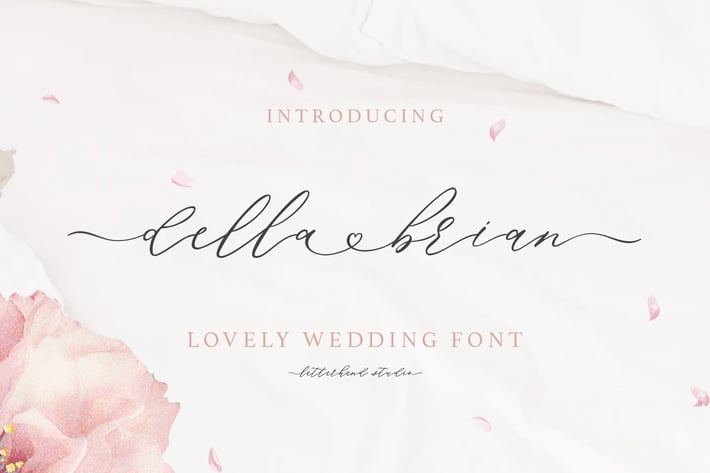
Della Brian - Lovely Wedding Font
Introducing, Della Brian - a lovely wedding typeface. This font has many stylistic alternates, ligatures, swashes so you can play around with them using opentype features and creates lettering with natural touch. This type of font perfectly made to be applied especially in logo, and the other various formal forms such as invitations, labels, logos, magazines, books, greeting / wedding cards, packaging, fashion, make up, stationery, novels, labels or any type of advertising purpose.
+ uppercase & lowercase
+ numbers and punctuation
+ multilingual
+ alternates and ligatures
+ swashes